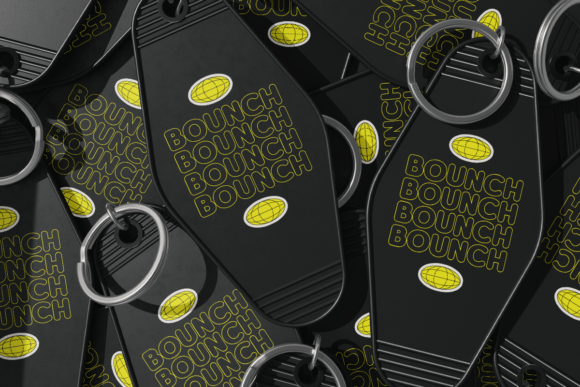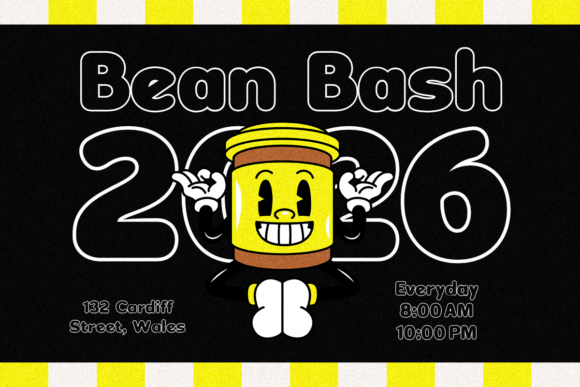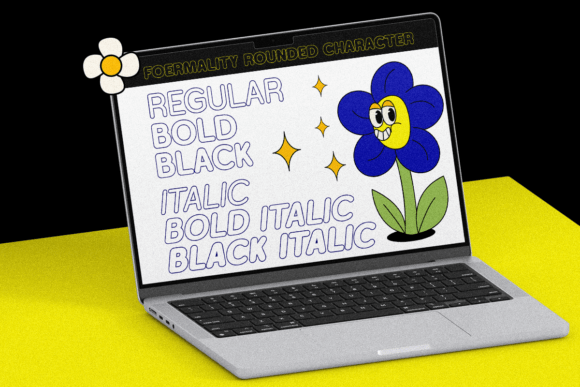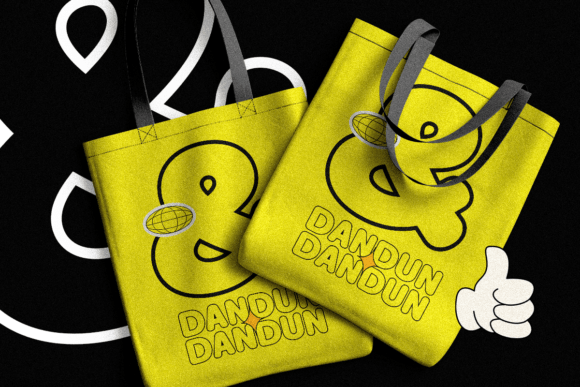
Introducing Foermality Rounded Outline Font: The Ultimate Modern Display Font
Are you looking for a font that can add a touch of fun, boldness, and futurism to your creative projects? Look no further than Foermality Rounded Outline Font! This modern rounded outline display font is designed to make a statement, with smooth rounded corners and stylish outlined letterforms that are sure to grab attention.
What Makes Foermality Rounded Outline Font Special?
Foermality Rounded Outline Font is not just another font – it’s a game-changer. Its unique blend of playfulness and modernity makes it perfect for a wide range of creative projects, from posters and branding to packaging and social media graphics. The font features:
- Regular, Bold, and Black weights, giving you flexibility and versatility
- Regular & Italic styles, allowing you to add emphasis and flair to your text
The Perfect Font for Creative Projects
Foermality Rounded Outline Font is designed to help you create eye-catching and trendy typography that stands out from the crowd. Its modern appearance makes it suitable for a variety of projects, including:
- Posters: Create bold and attention-grabbing posters that showcase your message
- Branding: Develop a strong brand identity with a font that’s both fun and professional
- Packaging: Add a touch of modernity and style to your product packaging
- Y2K Design: Create retro-futuristic designs that are perfect for the Y2K aesthetic
- Social Media: Elevate your social media graphics with a font that’s both trendy and engaging
- Gaming Graphics: Add a touch of futurism and excitement to your gaming graphics
- Music Covers: Create bold and eye-catching music covers that showcase your artist’s style
- Editorial Headlines: Use Foermality Rounded Outline Font to create attention-grabbing headlines that draw readers in
- Trendy Typography: Experiment with the font’s versatility and create unique and stylish typography
Why Choose Foermality Rounded Outline Font?
With so many fonts available, why choose Foermality Rounded Outline Font? Here are just a few reasons:
- Unique Style: Foermality Rounded Outline Font has a unique and distinctive style that’s sure to set you apart
- Flexibility: With multiple weights and styles, you can use the font in a variety of contexts
- Easy to Read: Despite its bold and playful appearance, Foermality Rounded Outline Font is easy to read and understand
- High-Quality Design: The font is designed to high standards, ensuring that it looks great in any context
Tips for Using Foermality Rounded Outline Font
To get the most out of Foermality Rounded Outline Font, here are a few tips:
- Experiment with Weights and Styles: Try out different weights and styles to find the perfect combination for your project
- Use it as a Headline Font: Foermality Rounded Outline Font is perfect for headlines and titles – use it to grab attention and draw readers in
- Pair it with Other Fonts: Experiment with pairing Foermality Rounded Outline Font with other fonts to create a unique and stylish typography
Foermality Rounded Outline Font is a modern and versatile display font that’s perfect for creative projects. With its unique blend of playfulness and modernity, it’s sure to add a touch of excitement and style to your designs. Whether you’re a designer, crafter, or simply someone who loves typography, Foermality Rounded Outline Font is a must-have font that’s sure to inspire.